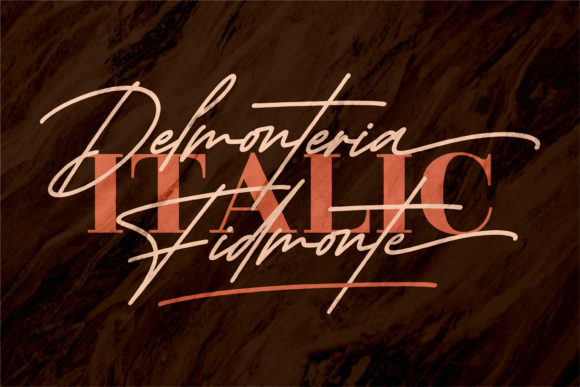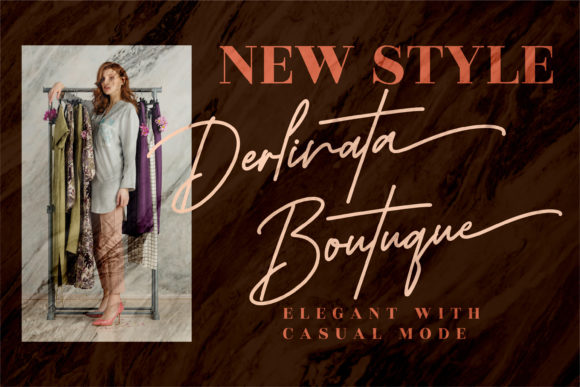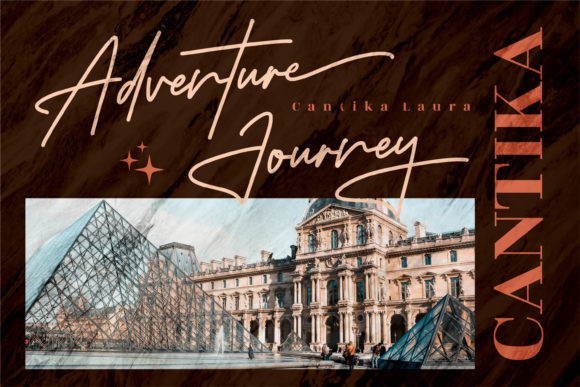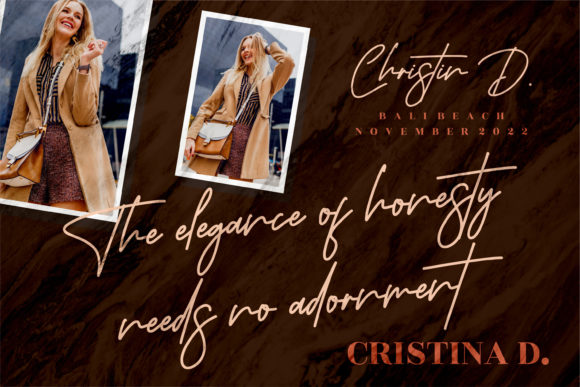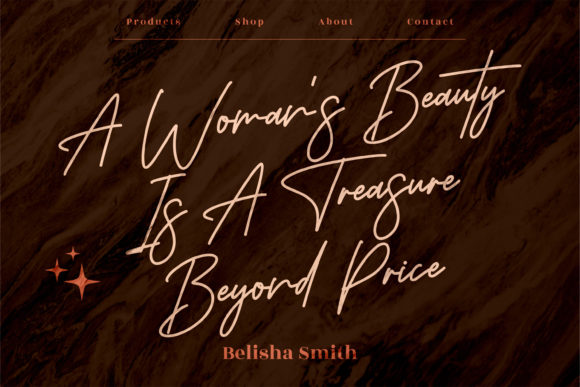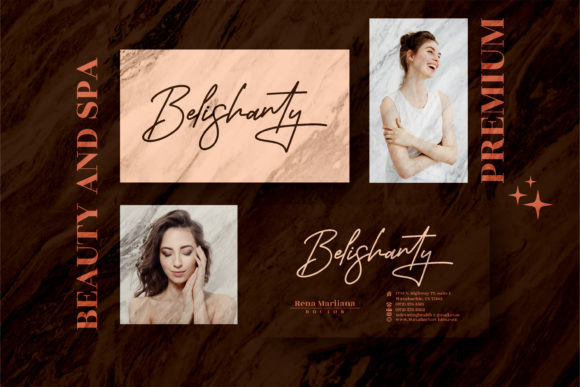
Introduction to Delmonteria Fidmonte Font
Do you ever find yourself staring at a blank canvas, waiting for the perfect font to bring your creative vision to life? For designers, the search for that elusive ‘wow’ factor can be a frustrating and time-consuming process. But what if I told you that there’s a font that can elevate your designs to new heights, adding a touch of sophistication and elegance that’s sure to impress?
Enter Delmonteria Fidmonte Font, a high-quality script font that’s designed to make a statement. With its stylish alternates and ligatures, this font is the perfect match for any creative project, from luxury branding to fine art print. And the best part? Delmonteria Fidmonte Font is available for free download, making it an invaluable design resource for designers of all levels.
Key Features of Delmonteria Fidmonte Font
- High-quality, elegant font design perfect for creative projects requiring a touch of sophistication.
- Transparent background allows for seamless integration with any design element, ensuring a cohesive visual identity.
- Available in a range of sizes and resolutions, including 300 DPI and 600 DPI, to cater to diverse design needs.
- Delmonteria Fidmonte Font is a versatile design resource suitable for a variety of applications, from branding and advertising to editorial and publishing.
- Its unique characteristics, such as intricate details and subtle flair, make it an ideal choice for designers seeking to add a distinctive touch to their creative project.
Honest Review: Delmonteria Fidmonte Font
As a designer, I’m always on the lookout for unique and high-quality fonts to elevate my creative projects. Recently, I came across the Delmonteria Fidmonte Font, and I was excited to see if it would meet my expectations.
One of the standout features of this font is its versatility. The Delmonteria Fidmonte Font is perfect for creating eye-catching headlines and titles, and its sleek design makes it ideal for modern branding and design projects.
- ✨ High-quality design that’s perfect for modern branding and design projects.
- ✨ Great for creating eye-catching headlines and titles.
However, I did encounter a few limitations when using the Delmonteria Fidmonte Font. One of the main issues I faced was with the font’s transparency, as it can sometimes make the background difficult to read.
- ⚠️ May not be suitable for designs with a transparent background.
- ⚠️ Can be challenging to read in certain lighting conditions.
Overall, I’m impressed with the Delmonteria Fidmonte Font’s design and versatility. While it may have some limitations, it’s definitely worth considering for your next creative project.
Delmonteria Fidmonte Font Overview
The Delmonteria Fidmonte Font is a high-quality, free download design resource ideal for creative projects that require a unique and stylish touch. This font features a transparent background, making it easy to use and customize in various design platforms.
Common Use Cases for Delmonteria Fidmonte Font
The Delmonteria Fidmonte Font is suitable for a wide range of creative projects, including:
- Social media graphics and posts.
- Presentation slides and documents.
- Graphic design projects, such as brochures or flyers.